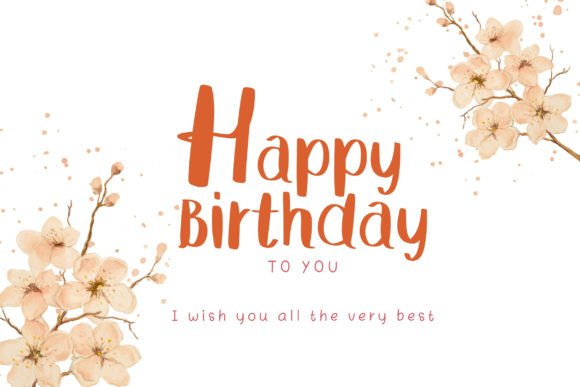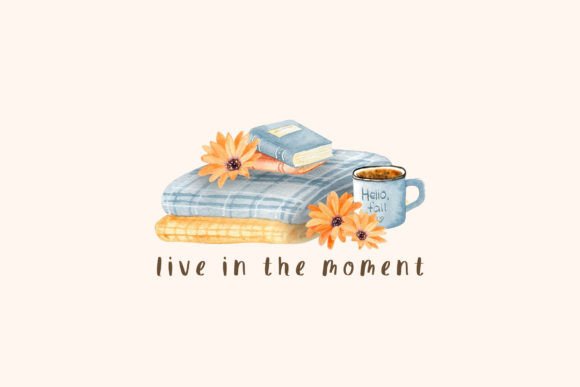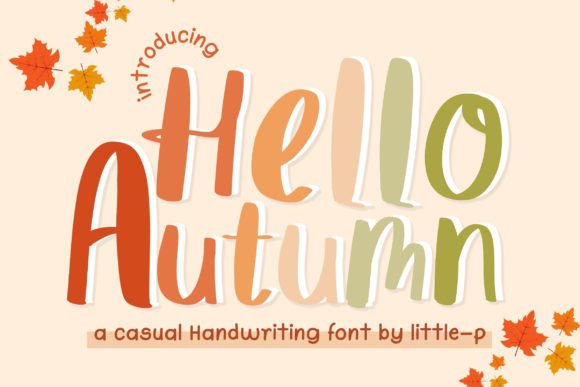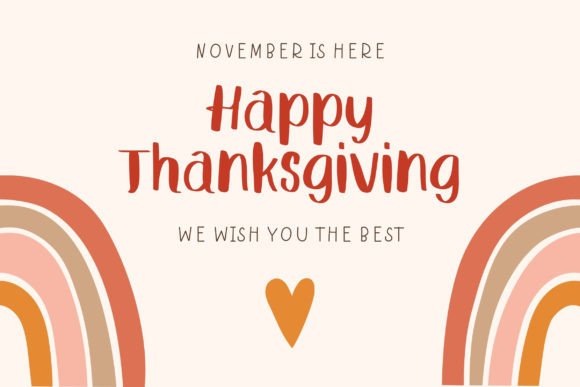
Hello Autumn Font
About the Hello Autumn Font
Let us introduce you to Hello Autumn Font, where timeless design meets modern craftsmanship. Introducing “Hello Autumn” a casual handwriting font that embodies the essence of autumn. With its simple and playful style, this font is perfect for a wide range of applications, from note-taking and digital planners to journals and educational notes. Its easy-to-use design makes it ideal for greeting cards, quotes, T-shirts, branding, and more.
Hello Autumn’s casual style shines in projects requiring a friendly, approachable feel. It works exceptionally well for short headlines, logos for small businesses (especially those in food, crafts, or education), social media graphics, and packaging for artisanal products. Avoid using it for lengthy body text or UI elements; its informal nature reduces readability in extended passages.
Consider pairing Hello Autumn with a clean sans-serif like Montserrat for a balanced contrast, or a classic serif such as Playfair Display for a touch of elegance. For a more playful feel, a geometric sans-serif like Futura would add modern structure.
The font’s overall personality is best described as friendly and approachable, conveying warmth and a sense of handcrafted charm. This makes it unsuitable for projects requiring sophistication or formality.